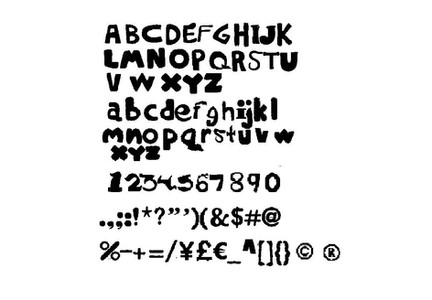
I made this font quickly to try to get my chicken scratch hand writing as natural as possible. Since I'm a guy you can see how bad it is lol. It's basically how I write in a font, which is fun to use.Enjoy!, I know it looks funky